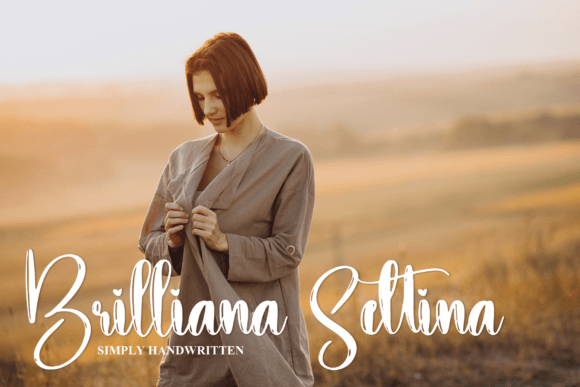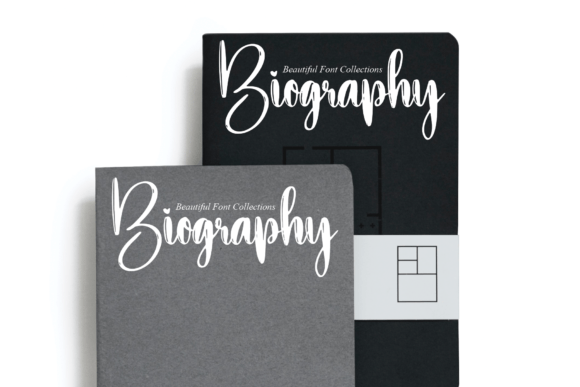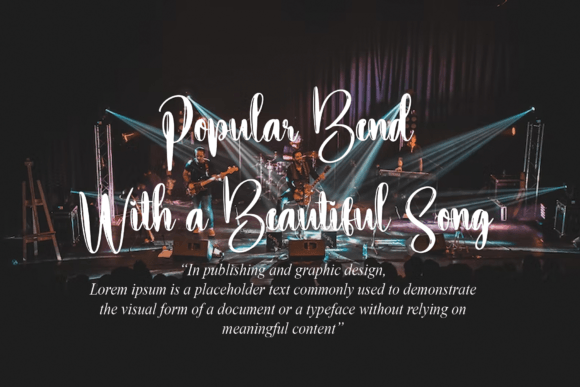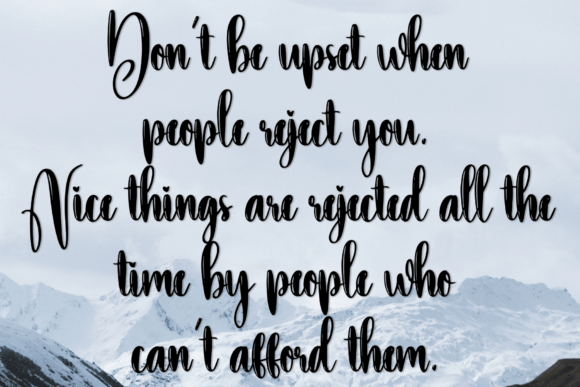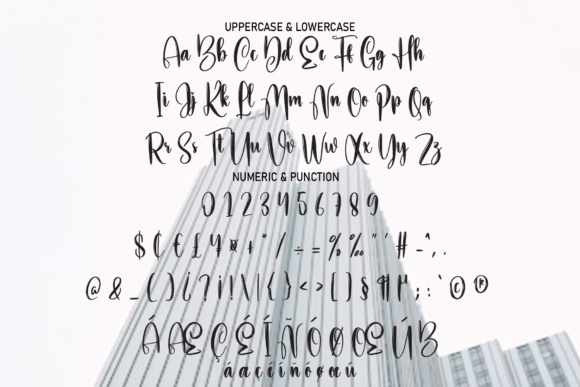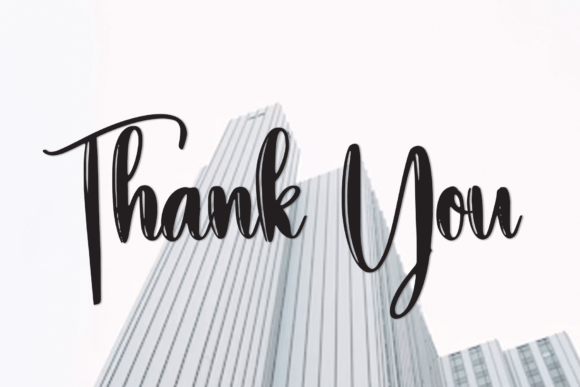
Introducing Building Font: Elevate Your Designs with Elegance and Charm
Are you a designer or crafter looking for a font that exudes elegance and charm? Look no further than Building Font! This beautiful, handwritten font is perfect for adding a touch of sophistication to your designs. In this article, we’ll explore the features and benefits of Building Font, and how it can elevate your designs to the next level.
A Font that Feels Equally Charming and Elegant
Building Font is a stunning script font that feels equally charming and elegant. Its unique, handwritten style makes it perfect for a wide range of design applications, from wedding invitations and thank you cards to quotes, greeting cards, logos, business cards, and more. Whether you’re designing for a special occasion or creating a brand identity, Building Font is sure to impress.
Wedding designers and event planners, rejoice! Building Font is a dream come true for creating beautiful, bespoke wedding invitations, save-the-dates, and other event materials. Its elegant, cursive script adds a touch of romance and sophistication to any design, making it perfect for:
- Wedding invitations and save-the-dates
- Thank you cards and RSVP cards
- Wedding programs and menus
- Event branding and signage
Add a Handwritten Touch to Your Designs
Building Font is not just limited to wedding and event designs. Its versatility makes it perfect for adding a handwritten touch to a wide range of design applications, including:
- Quotes and inspirational posters
- Social media graphics and ads
Why Choose Building Font?
So, why choose Building Font over other fonts? Here are just a few reasons:
- Unique and elegant style: Building Font has a distinctive, handwritten style that sets it apart from other fonts.
- Versatile: Use Building Font for a wide range of design applications, from wedding designs to logos and branding materials.
- Easy to read: Despite its elegant, cursive script, Building Font is easy to read and understand.
- High-quality: Building Font is a high-quality font that will elevate your designs and make them stand out.
Tips for Using Building Font
In conclusion, Building Font is a beautiful, elegant font that is perfect for designers and crafters looking to add a touch of sophistication to their designs. Its unique, handwritten style makes it perfect for a wide range of design applications, from wedding invitations and event materials to logos and branding materials. With its versatility, ease of use, and high-quality design, Building Font is a must-have font for any designer or crafter.